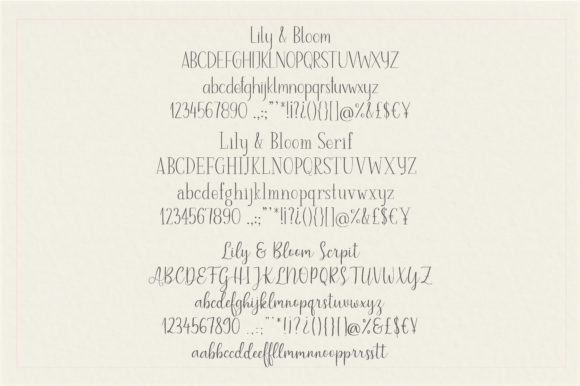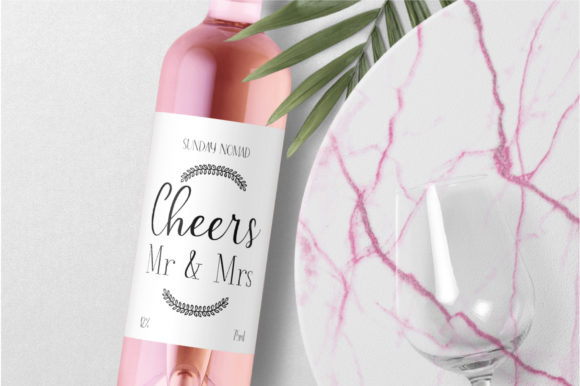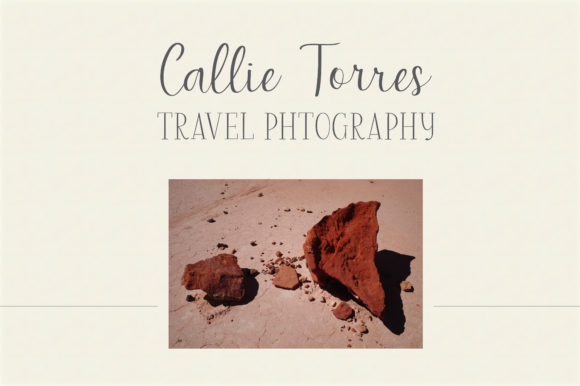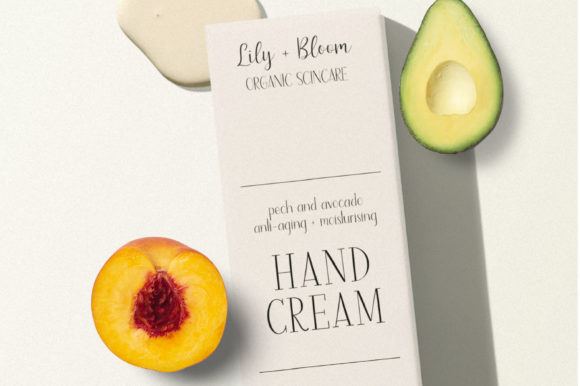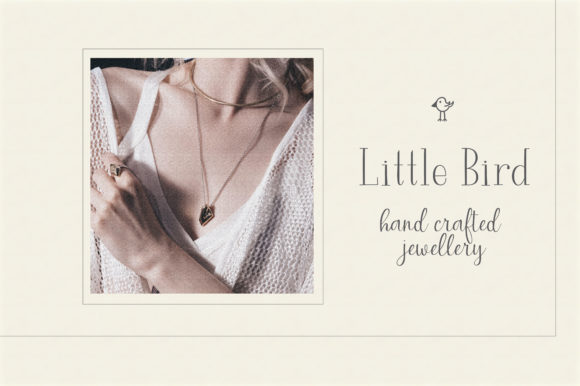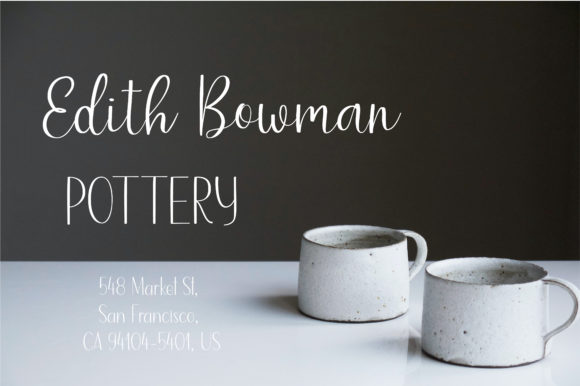
Introduction to Lily & Bloom Font
Have you ever stumbled upon a design that just makes your heart skip a beat? For me, it’s the moment when a beautiful font brings a creative project to life. That’s exactly what the Lily & Bloom Font does – it adds a touch of elegance and sophistication to any design. This stunning family of three handcrafted fonts in script, sans, and serif styles is a treasure trove for designers and creatives alike.
Whether you’re working on a branding project, packaging design, or social media graphics, the Lily & Bloom Font is the perfect design resource to elevate your work. With its high-quality design, you can be sure that your project will stand out from the crowd. Plus, it’s available for free download, making it an excellent addition to your design toolkit.
- This elegant font features a unique blend of modern and vintage elements, making it perfect for a wide range of creative projects.
- Lily & Bloom Font is a versatile design resource that can be used for various purposes, including invitations, logos, and other creative projects.
Honest Review: Lily & Bloom Font
As a designer, I’m always on the lookout for high-quality design resources to enhance my creative projects. The Lily & Bloom Font is one such resource that caught my attention. This free download has been a game-changer for me, offering a unique and elegant style that’s perfect for various design applications.
Here are some things that work well with this font:
- ✨ Unique and playful design that adds a touch of whimsy to any project
- ⚠️ May not be suitable for formal or professional projects due to its playful nature
Overall, I’m thoroughly impressed with the Lily & Bloom Font. Its high-quality design and versatility make it a valuable addition to any designer’s toolkit. Whether you’re working on a creative project or simply need a fun and engaging font for a social media post, this font is definitely worth checking out.
The Lily & Bloom Font is ideal for various creative projects, including wedding invitations, baby shower invitations, and other celebratory events. It’s also suitable for branding and marketing materials, such as logos, business cards, and brochures.